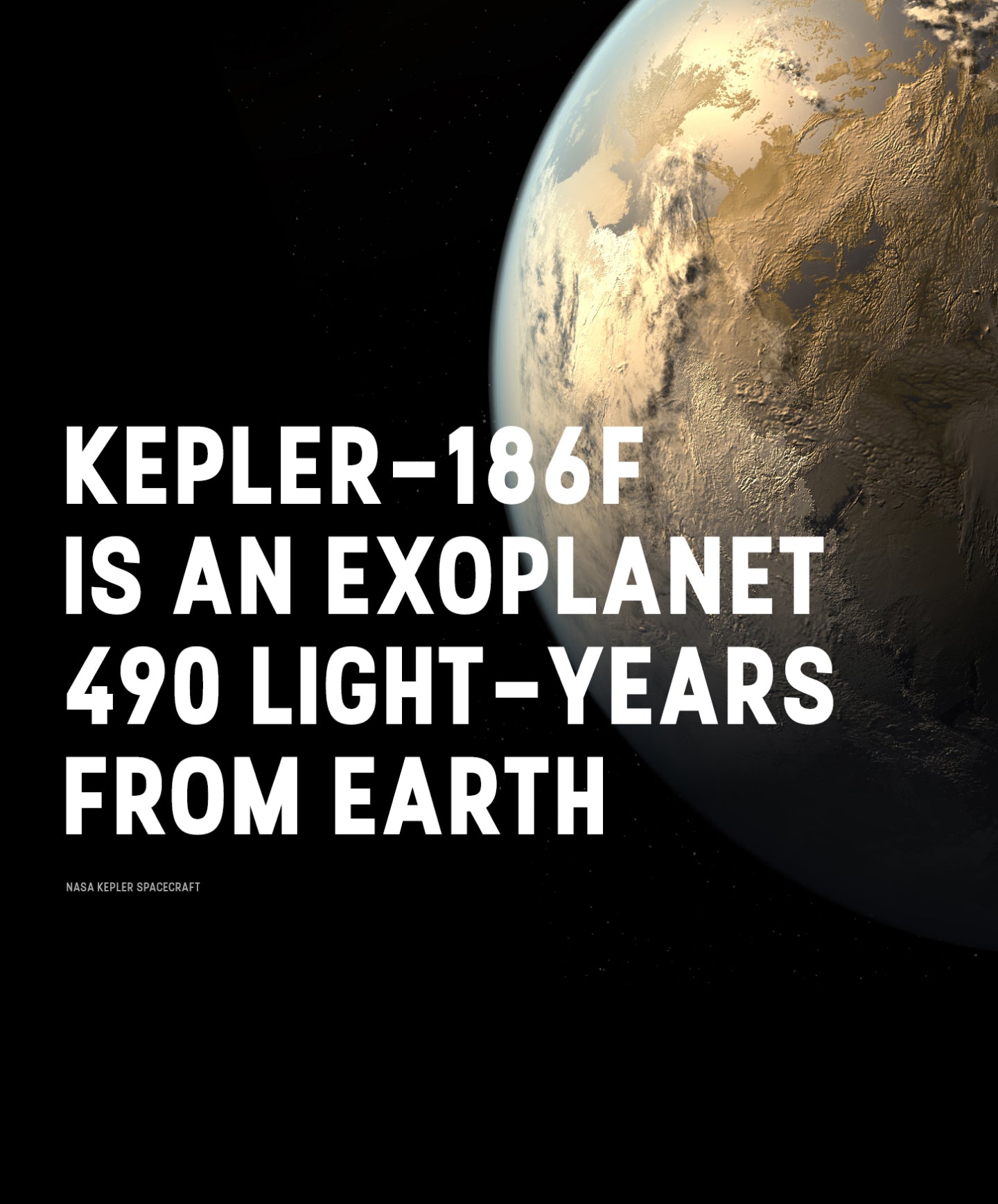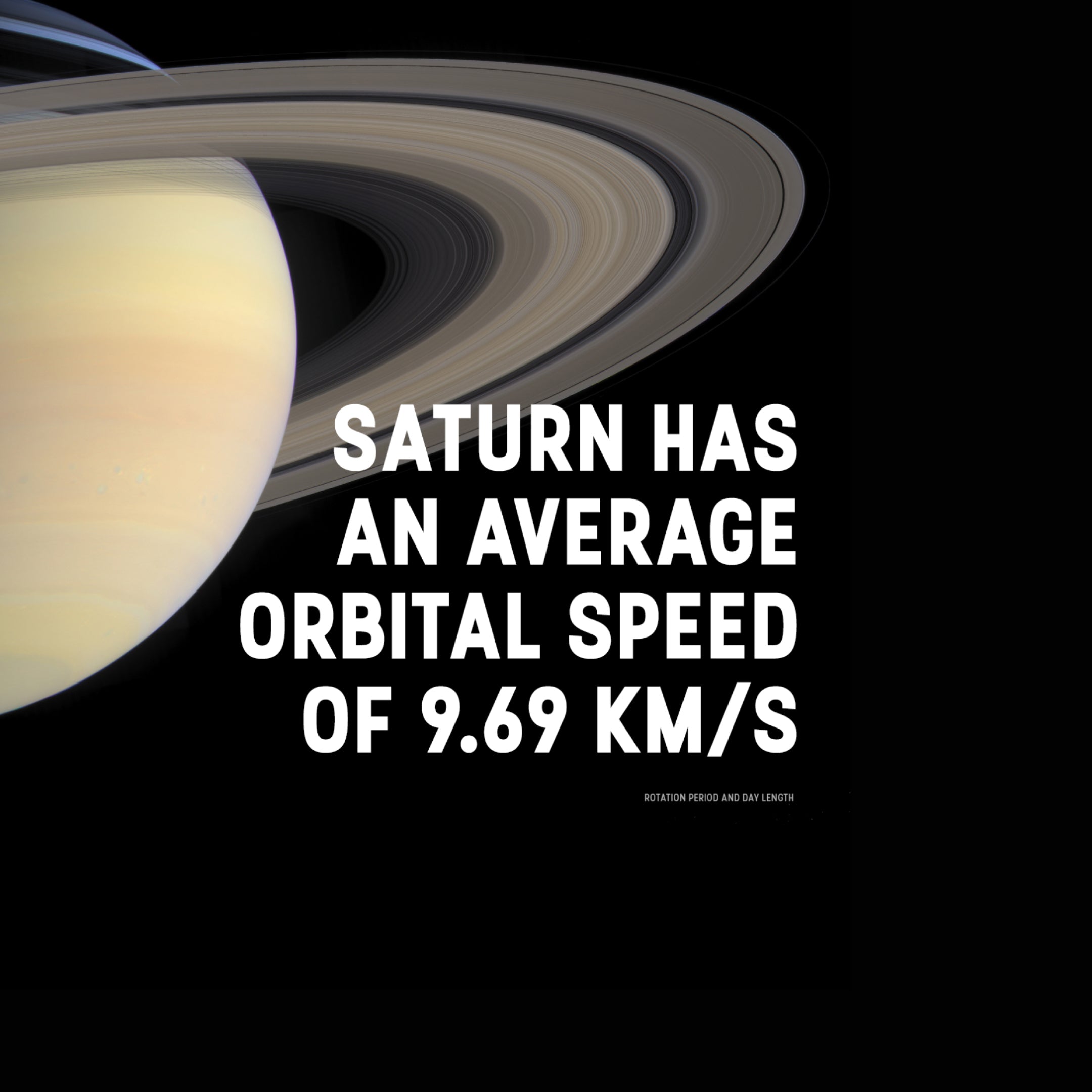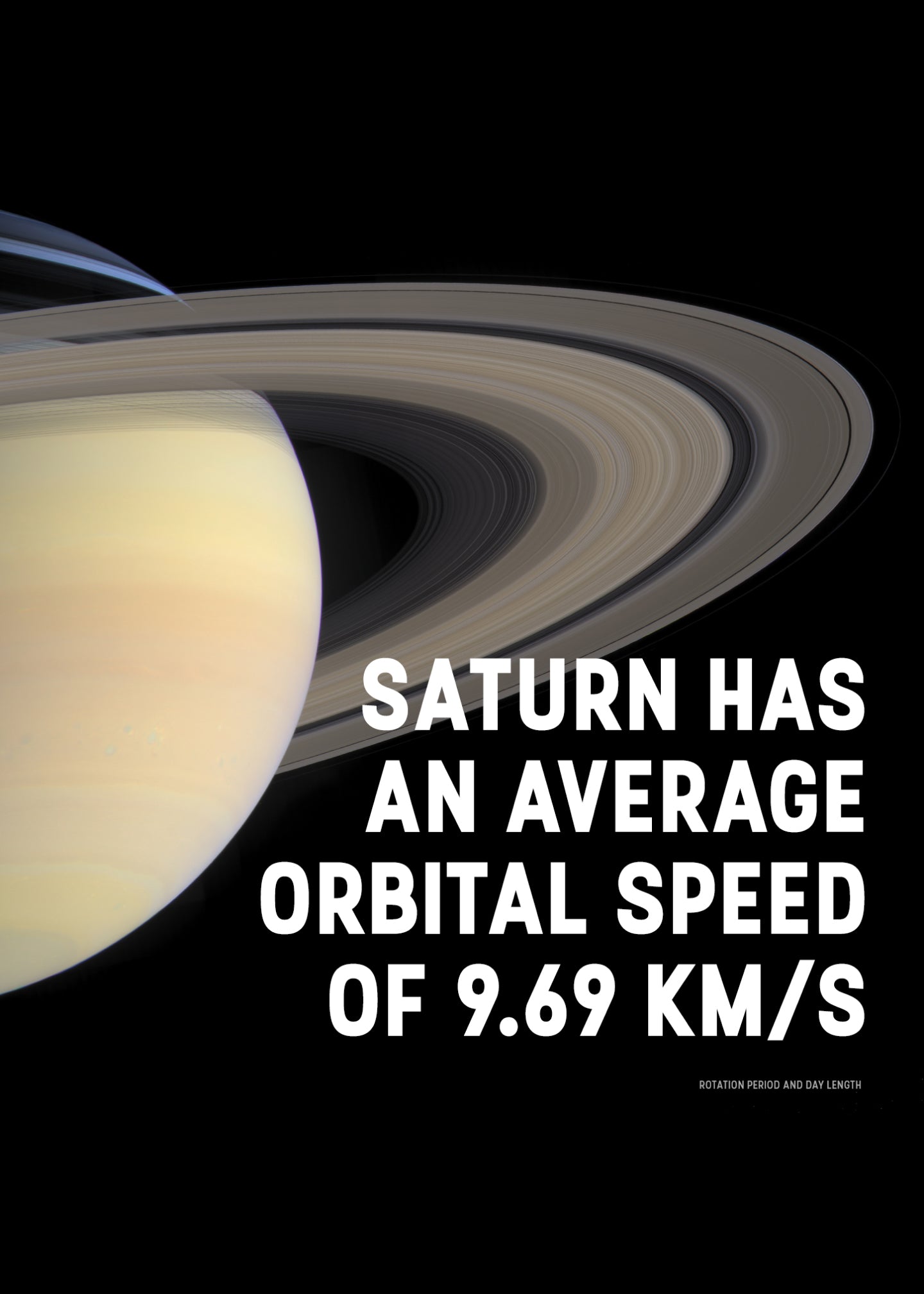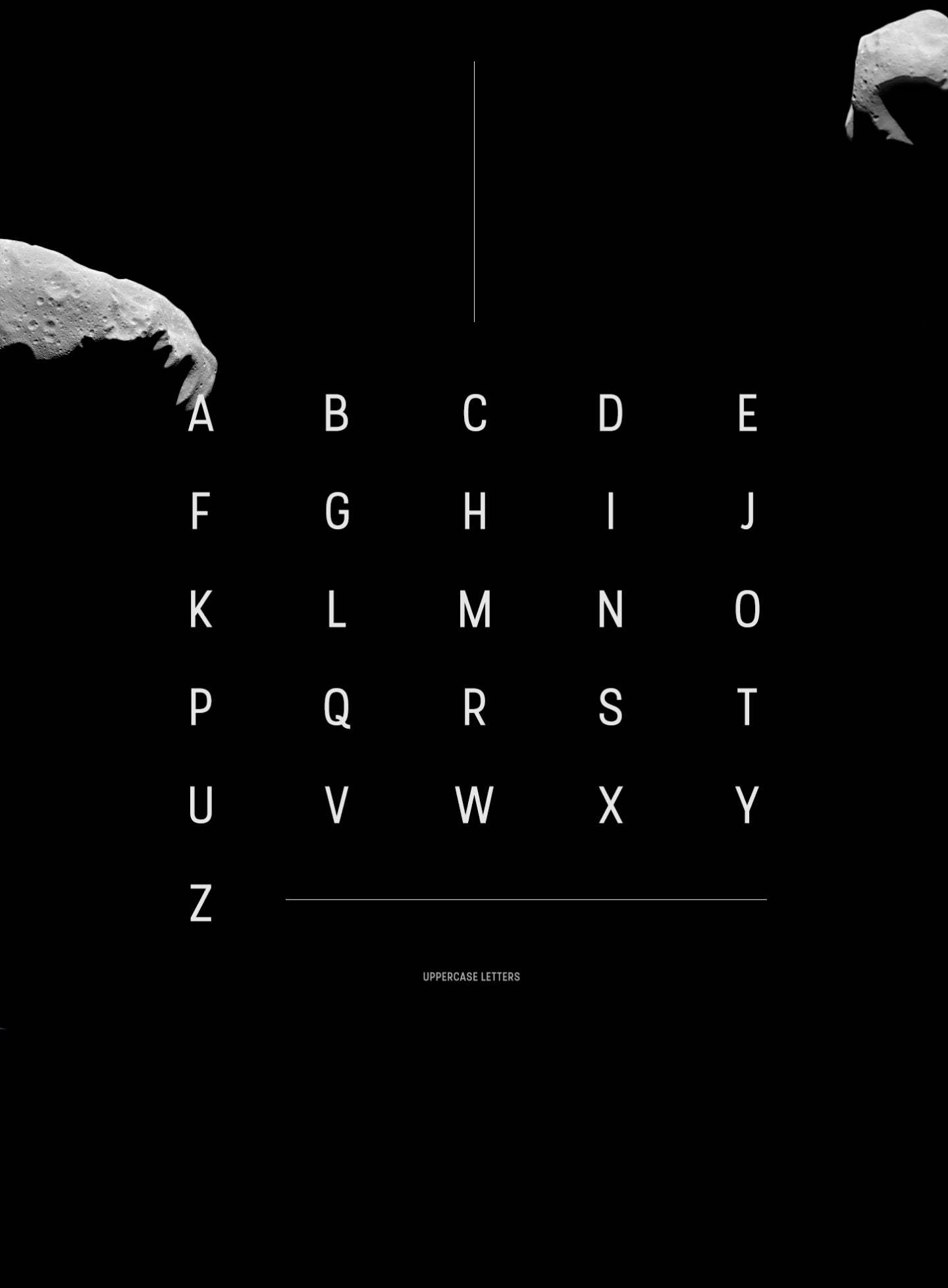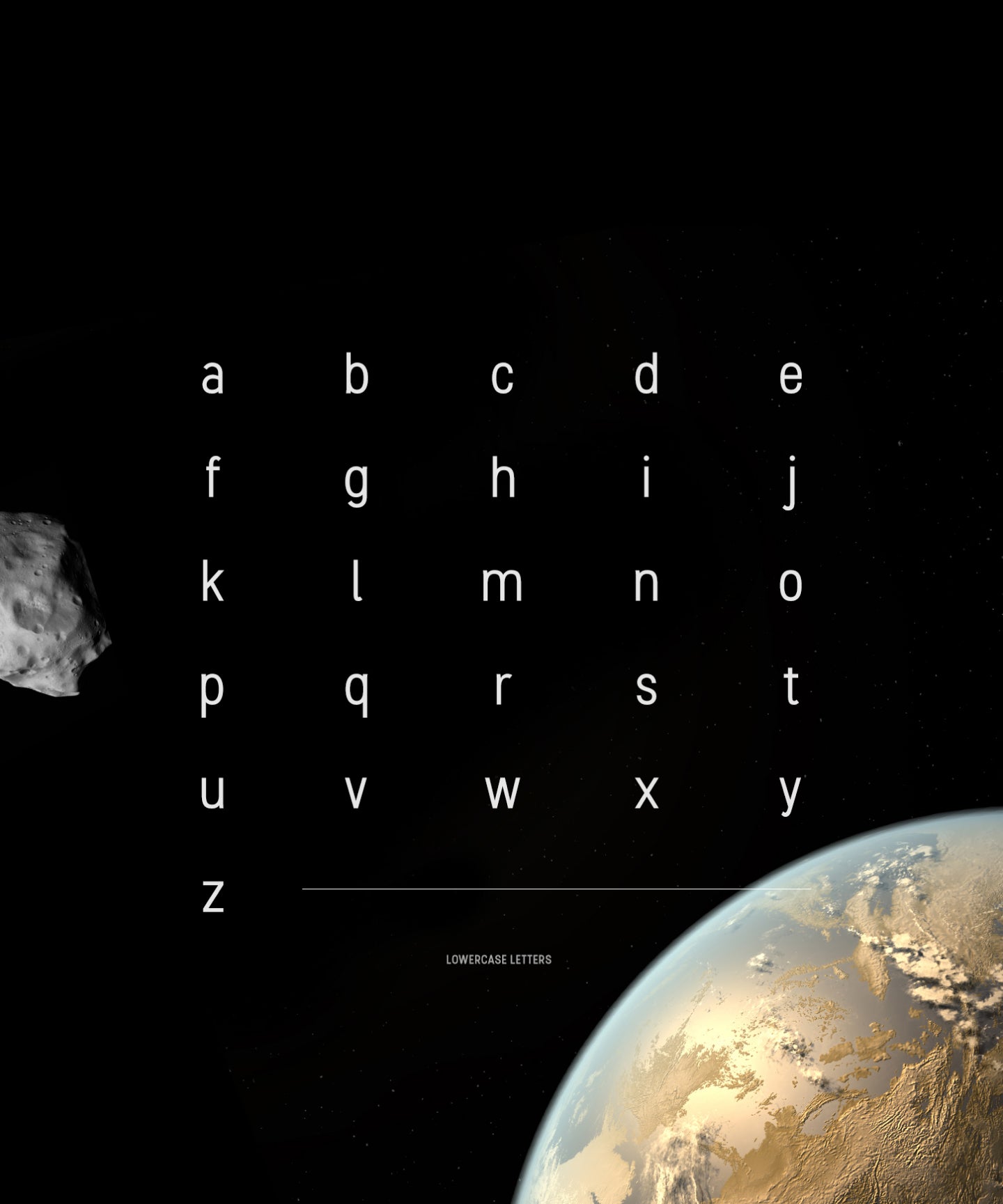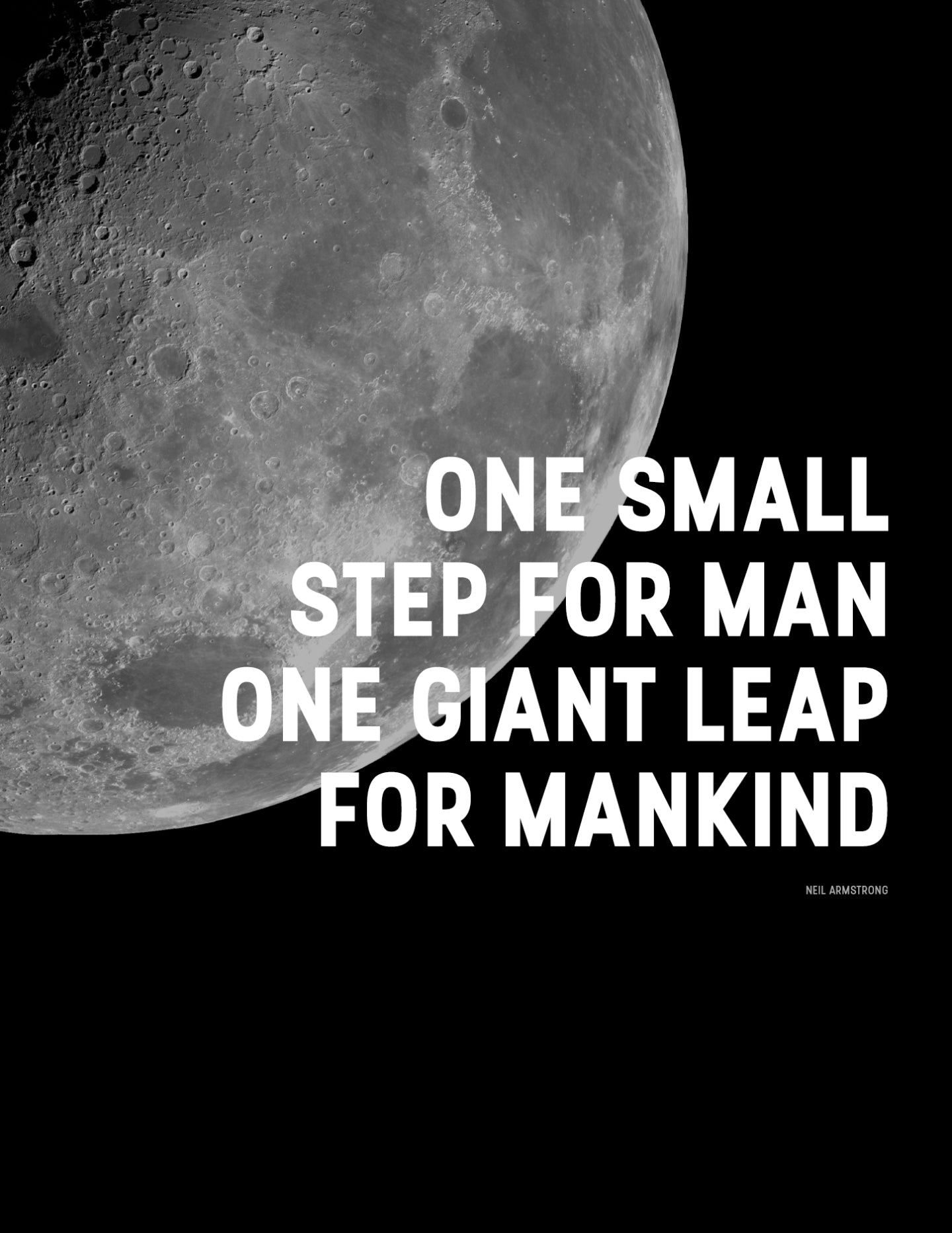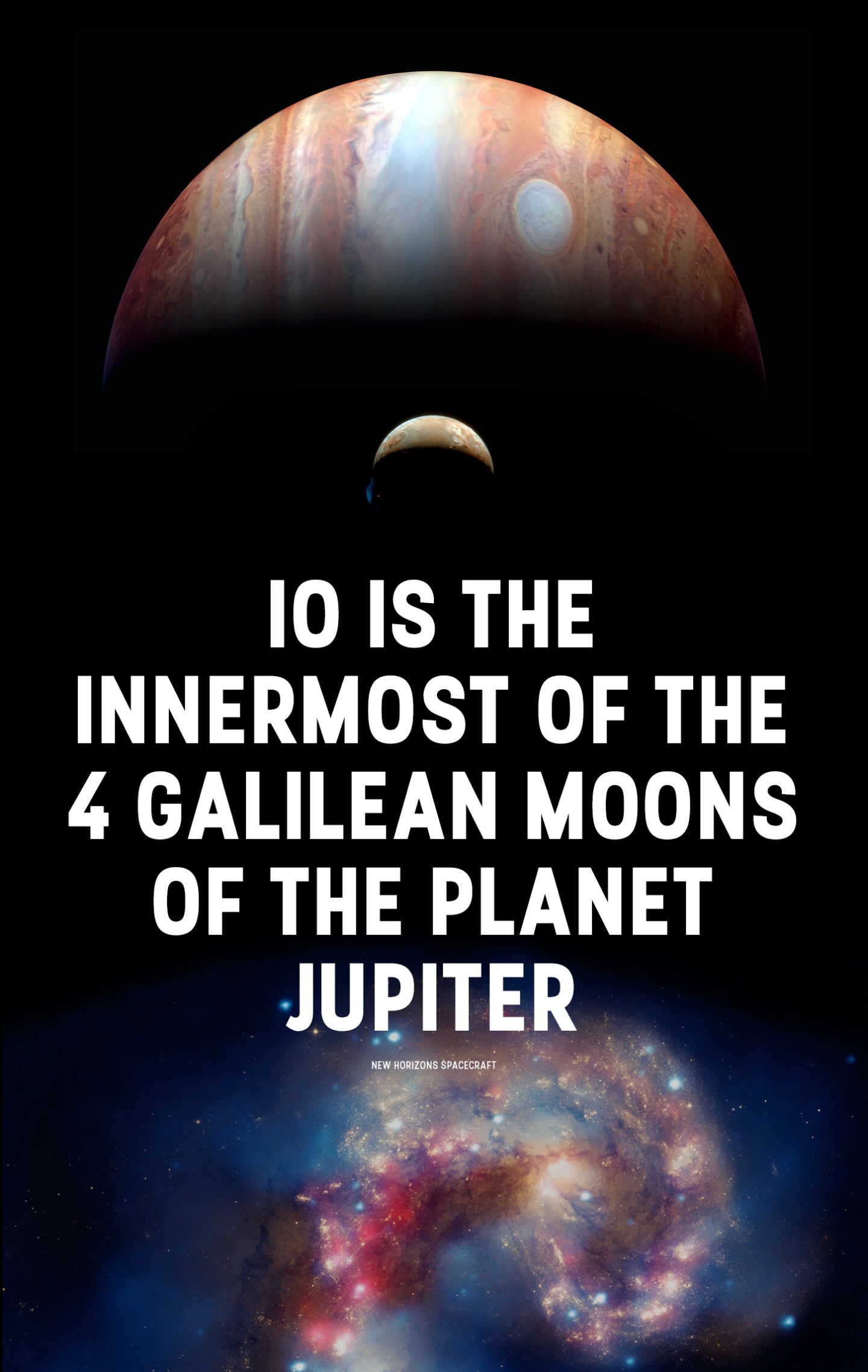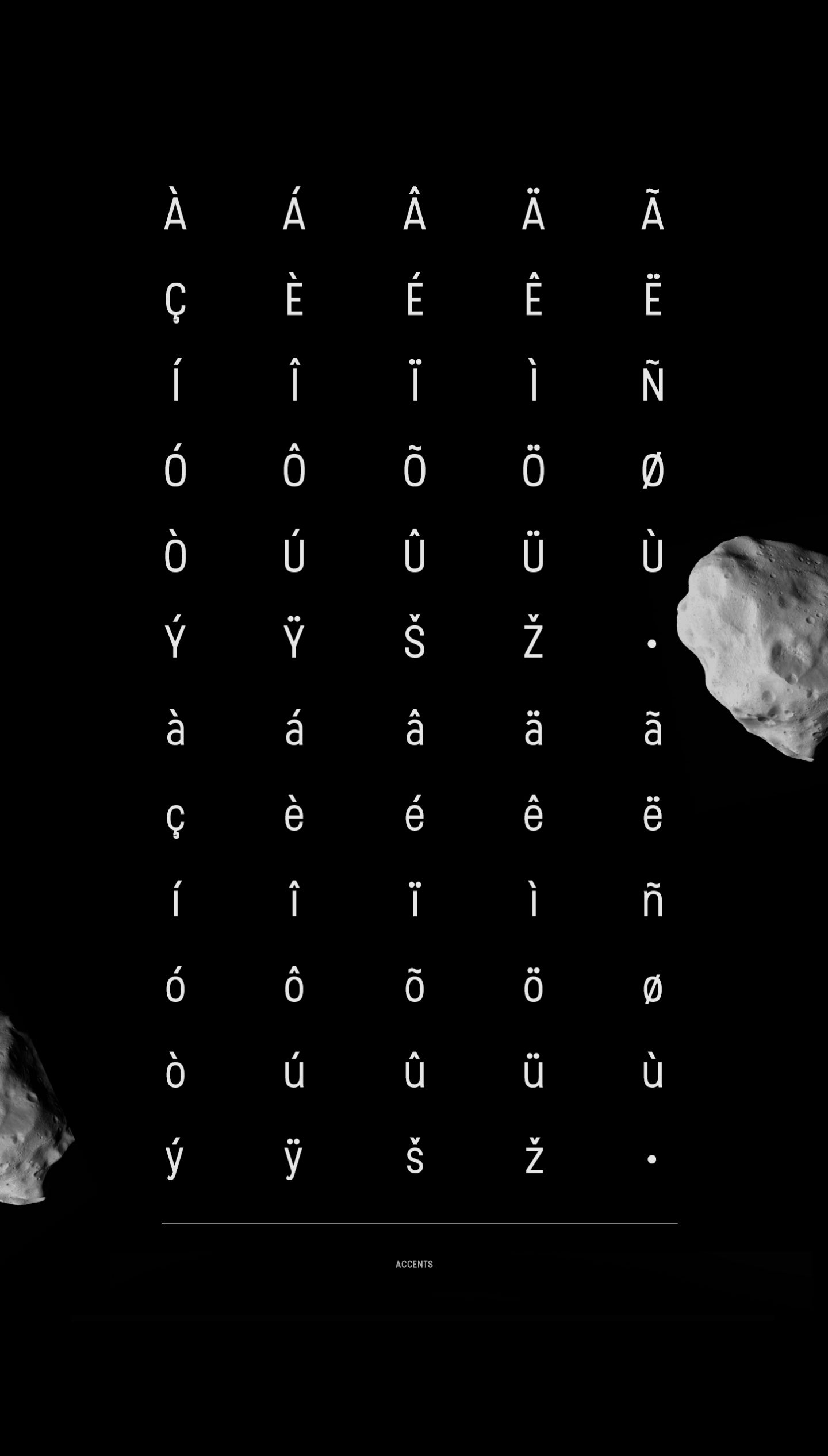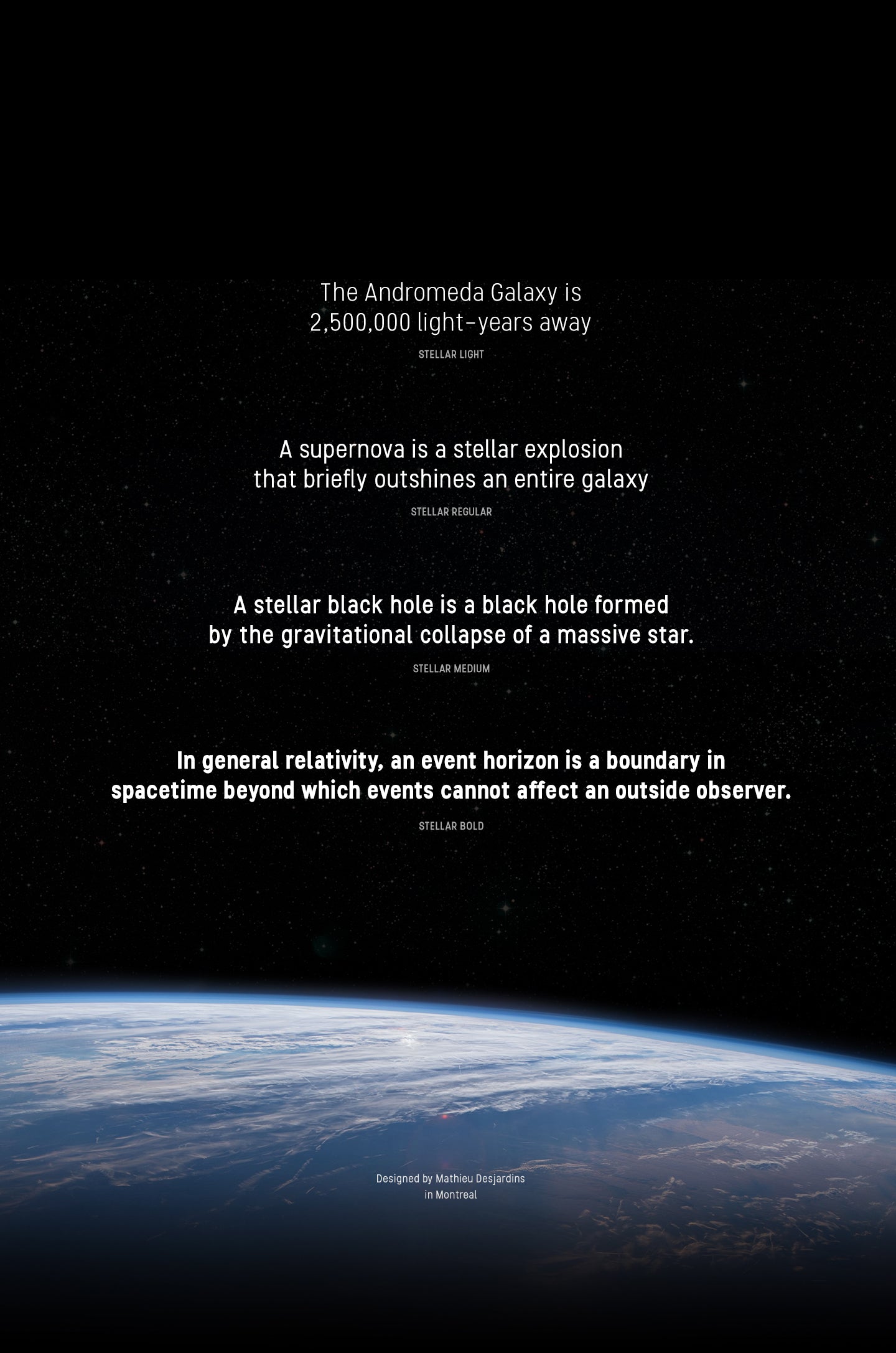
Stellar Sans
From atoms to galaxies, it’s all in the details.
Stellar Sans
Designed for tight spaces, big ideas, and clean orbits.
Stellar Sans
Stellar is a condensed sans serif font designed for clarity, impact, and efficient use of space. With its taller x-height, it achieves exceptional readability in tight layouts while bringing a subtle edge that gives your designs a touch of futuristic personality.
Stellar Sans
Whether you're designing for editorial spreads, web interfaces, brand identities, or poster layouts, Stellar provides the structure you need without sacrificing style. Its four versatile weights make it easy to build typographic hierarchies, and its narrow proportions allow you to fit more content without feeling crowded—making it ideal for mobile design, packaging, and high-density layouts. Inspired by the tension between the galactic and the atomic, Stellar balances minimalism with a refined visual punch. It’s sleek, focused, and crafted for projects that need to feel modern, intelligent, and a little otherworldly. Use Stellar when your design needs to stay grounded—but still reach for the stars. It’s purposeful typography, whether you're communicating data or launching a new brand into orbit.
From atoms to galaxies, it’s all in the details.
Stellar is a condensed sans serif type with a taller x-height to give it legibility and personality. It comes in four weights and was designed to give purpose to your ideas, galactic or atomic.